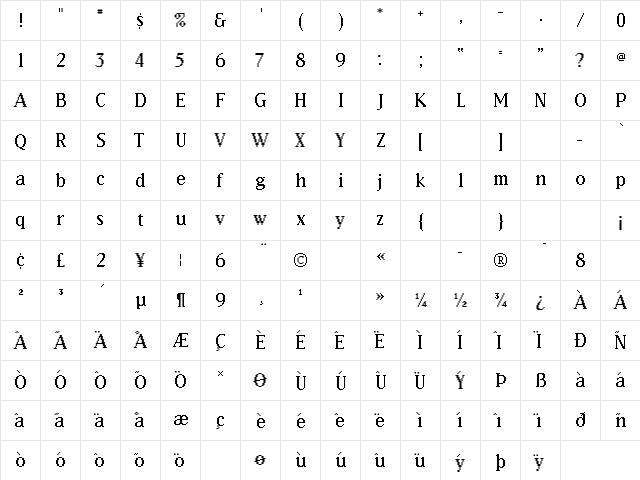
EmigreFourTeen Medium Font Preview
EmigreFourTeen Medium
Design Context for EmigreFourTeen Typeface
EmigreFourTeen takes a measured approach to typography — its balanced proportions and neutral character make it a reliable workhorse for both digital and print work.
Pro Tip: Use EmigreFourTeen in both headline and body roles to test its range before committing to a single application.